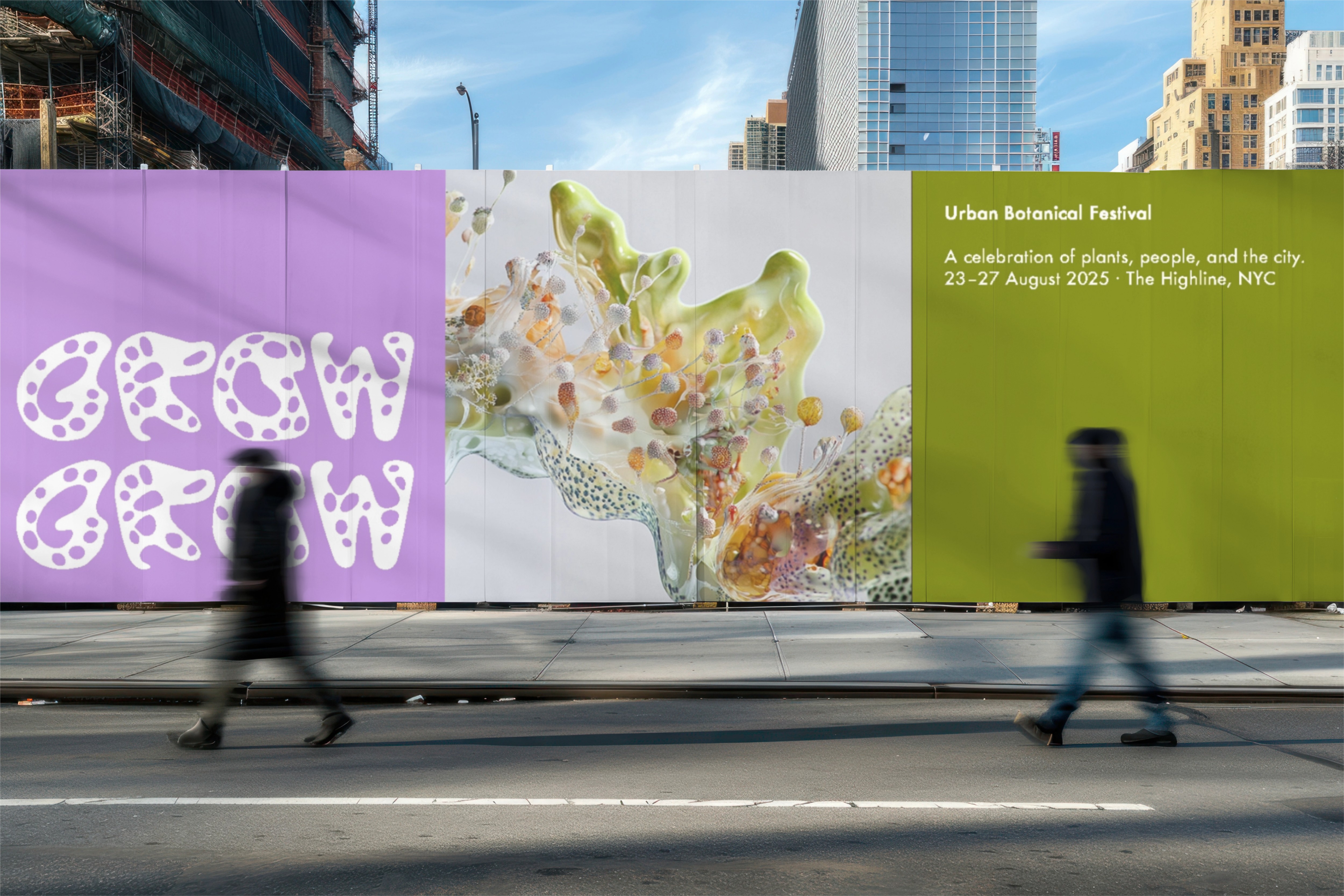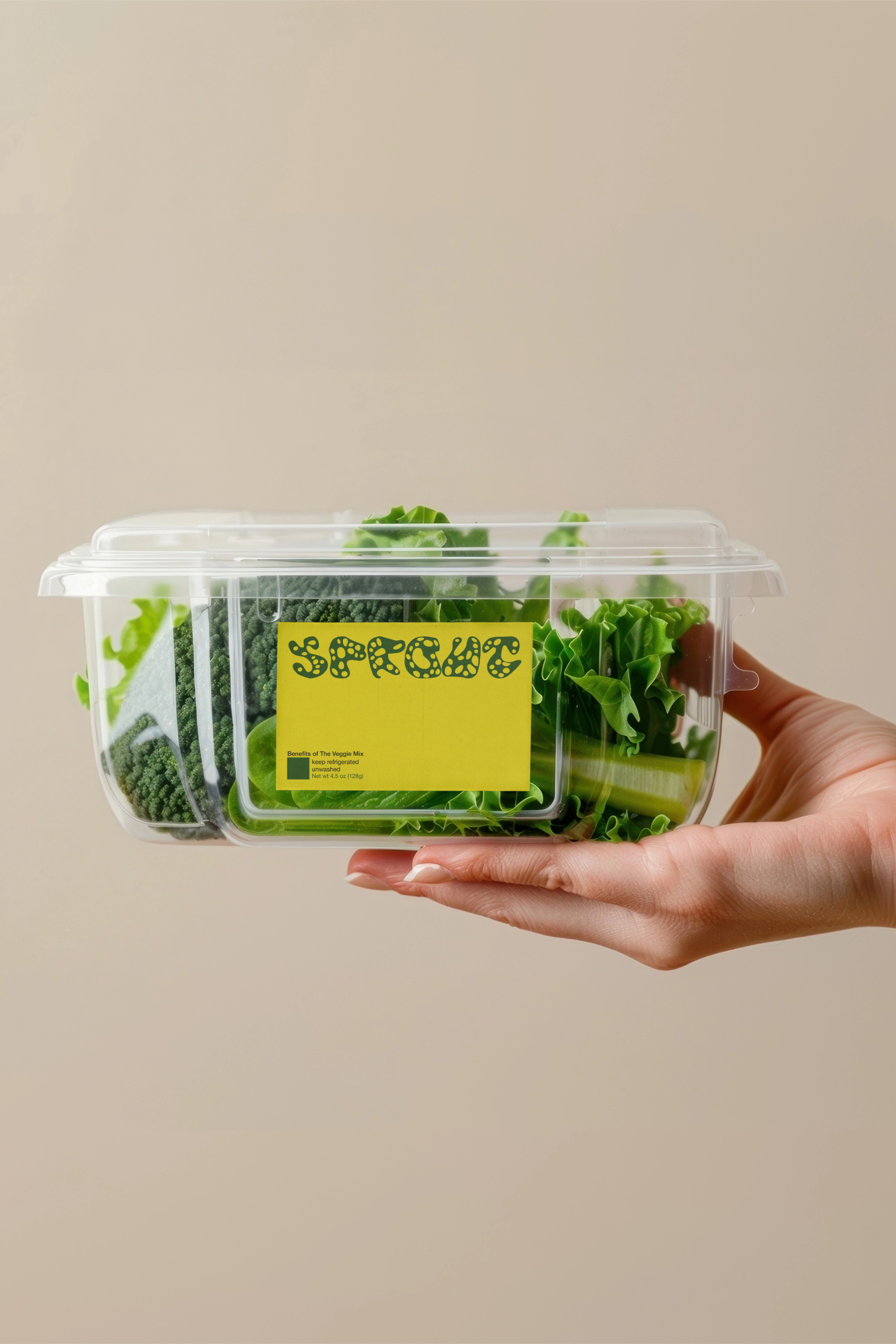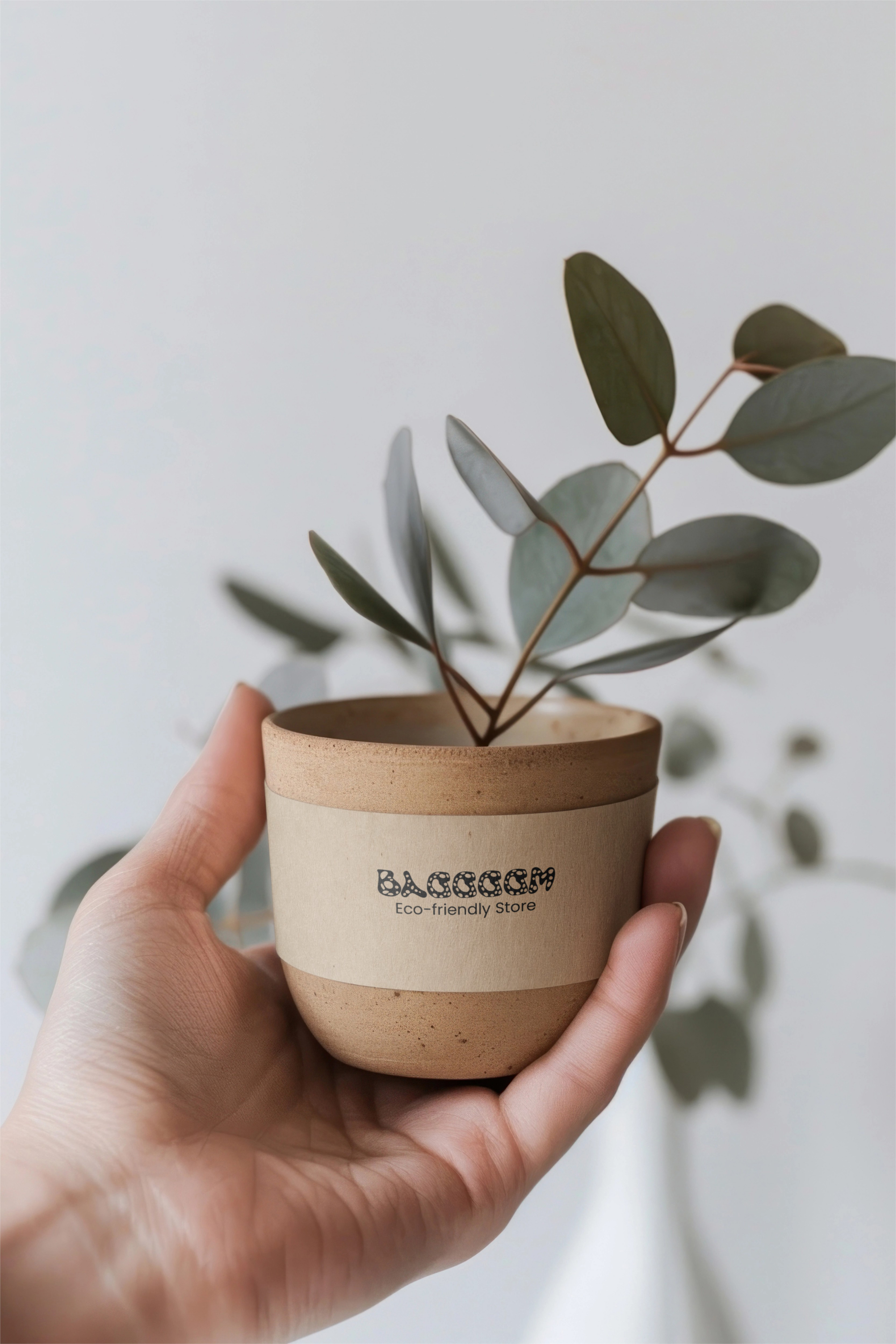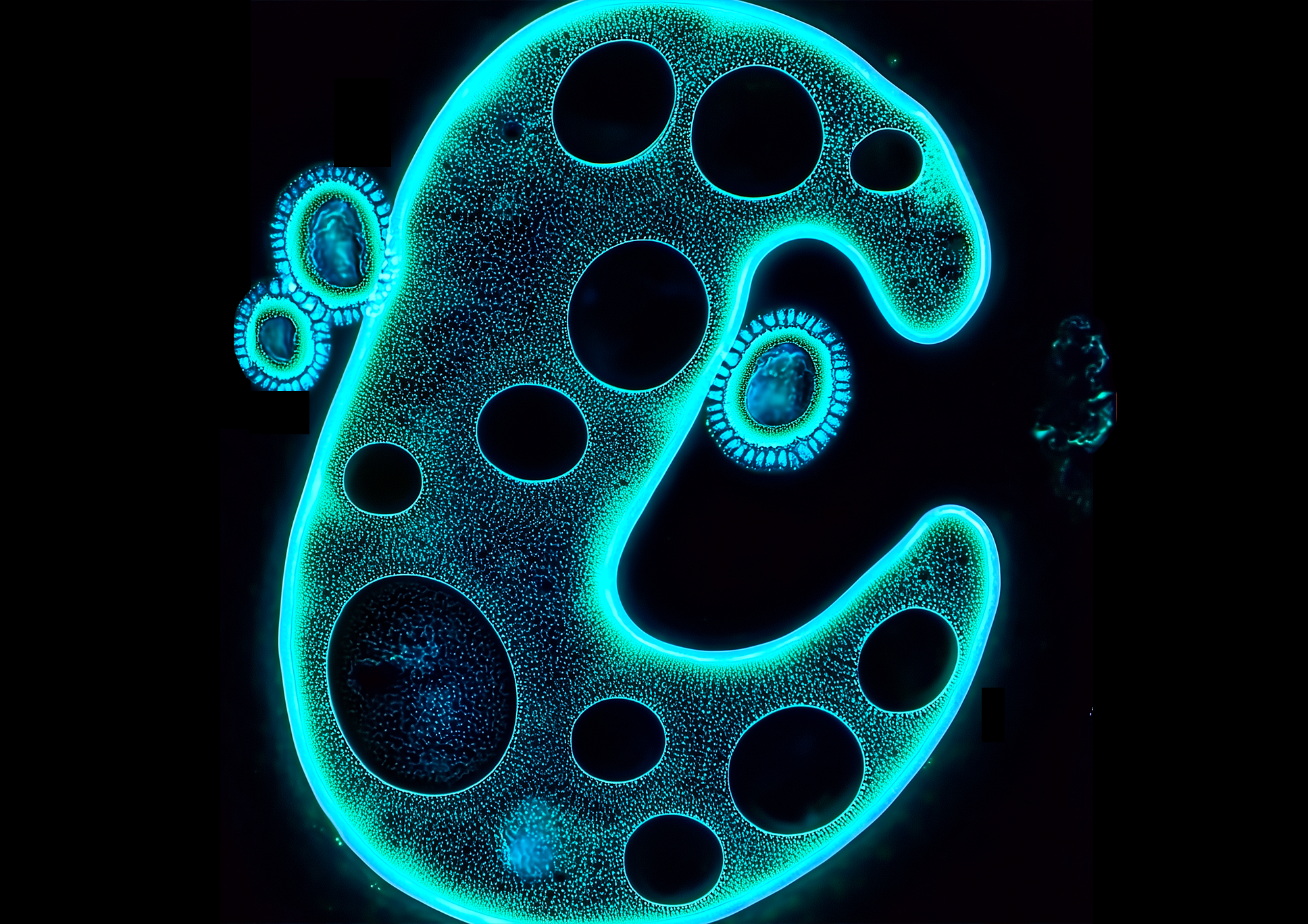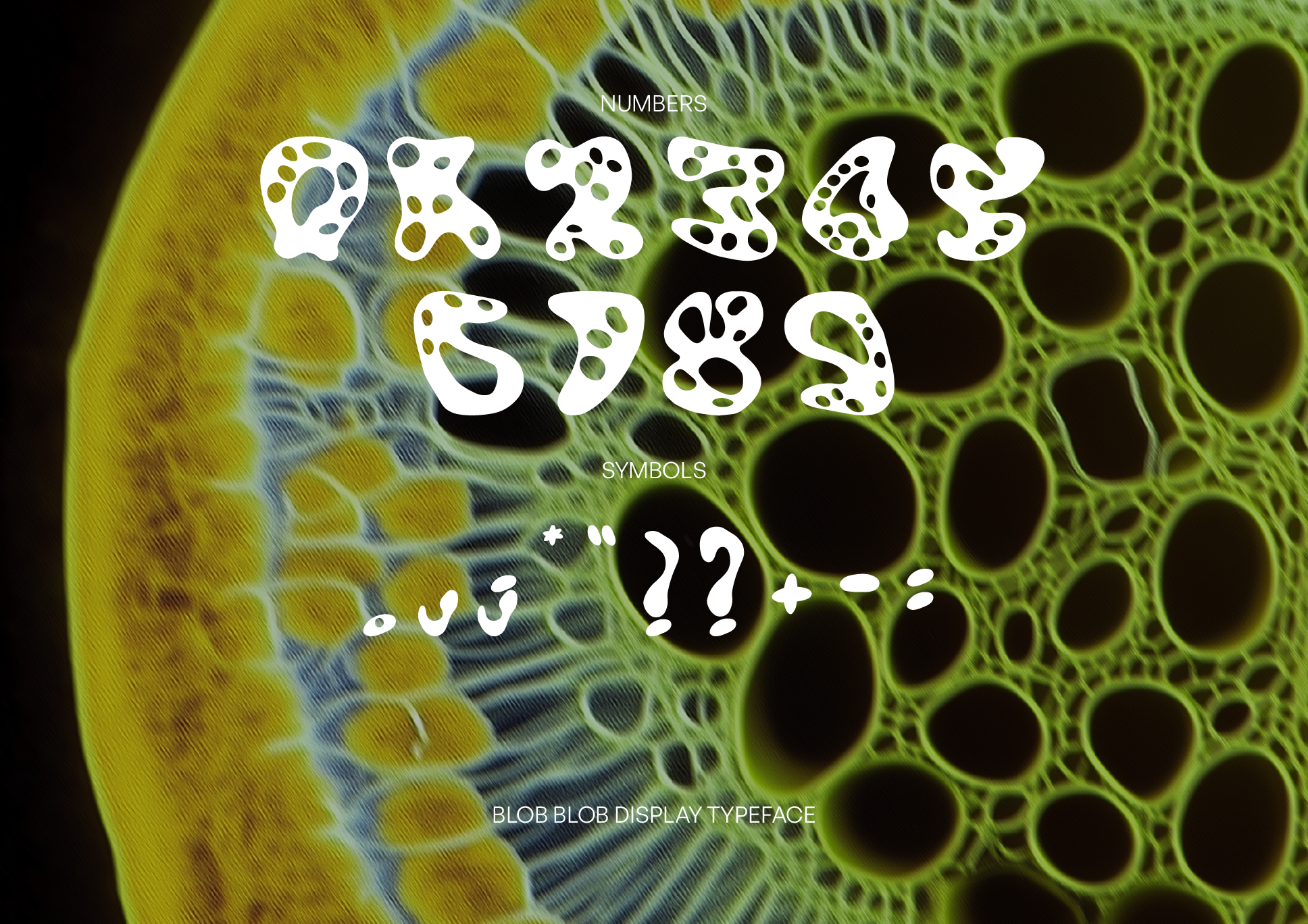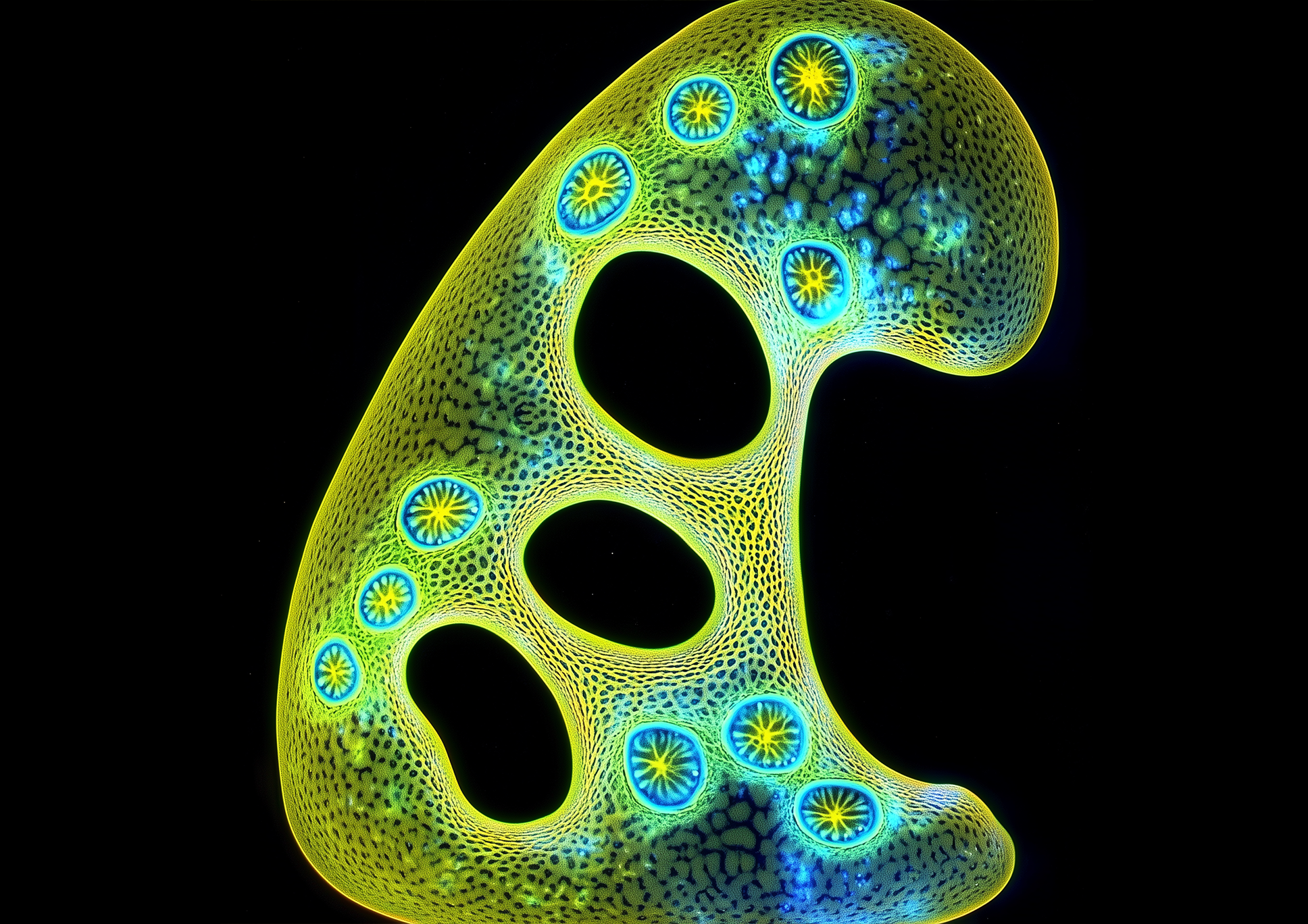
Cellular Nature
Cellular Nature is an experimental typeface inspired by cell division, soft matter, and emergent systems. Its biomorphic curves and porous forms reflect the structures of nature and suggest a living, evolving typographic language.